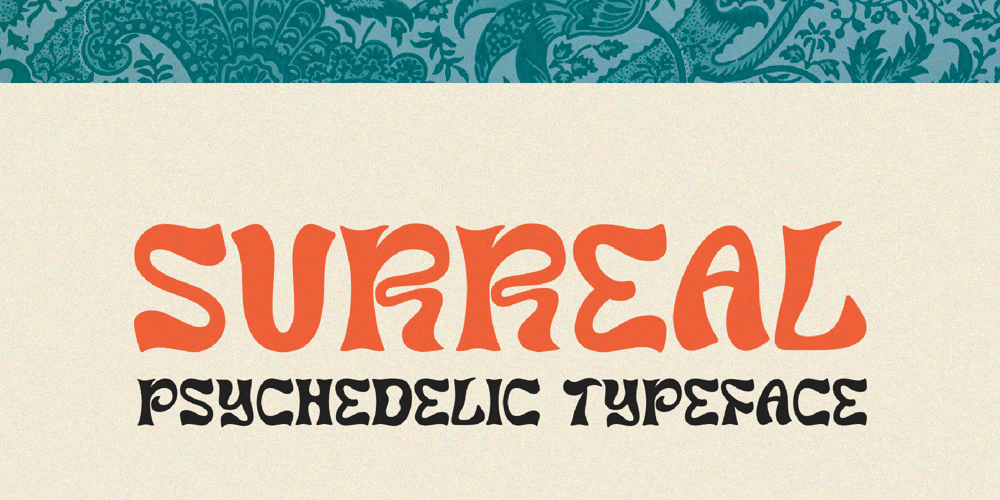
Surreal Font Family was designed by Igor Ovsyannykov and published by Hipfonts. Surreal contains 1 styles and family package options. Surreal a hand drawn psychedelic font perfect for groovy posters, experimental artwork, and rad design projects. It was inspired by the psychedelic movement of the mid 60’s. Since this one of-a-kind typeface is not seen everyday, your design projects are bound to grab the reader’s attention.If you’re looking to inject the right does of mojo into your retro designs then this font is for you. Surreal includes uppercase, lower case, numbers, and punctuation.